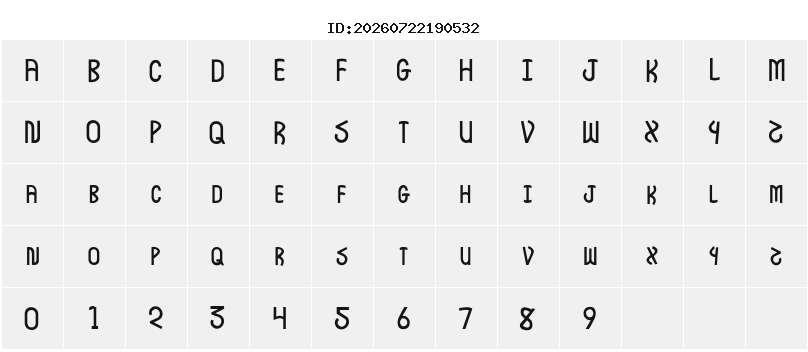
• Font Name: JI Deschutes
• Font Style: JI Deschutes
• Full Font Name: JI Deschutes
• PostScript Name: JIDeschutes
• Character Count: 101
• Designer: Jeri Ingalls
About JI Deschutes.ttf
JI Deschutes.ttf is a modern, elegant sans-serif font designed for ultimate readability and visual harmony. Perfect for branding, headlines, web design, and print materials.